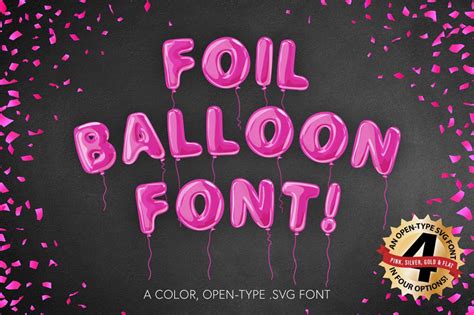
Free Balloon Font . This font is for personal use only! Web experience the fun and whimsy of our free balloon fonts.
These captivating typefaces infuse your designs with playfulness and creativity, transforming ordinary text into a vibrant dance of letters reminiscent of floating balloons. This font is for personal use only! Web experience the fun and whimsy of our free balloon fonts.
Free Balloon Font - Web free for personal use. Not free for commercial use. These captivating typefaces infuse your designs with playfulness and creativity, transforming ordinary text into a vibrant dance of letters reminiscent of floating balloons. This font is for personal use only! Web looking for party balloon fonts?
Free Balloon Font - These captivating typefaces infuse your designs with playfulness and creativity, transforming ordinary text into a vibrant dance of letters reminiscent of floating balloons. Balloon is licensed under the following terms: Perfect for party invitations, kid's events or any jovial occasion! Web free for personal use. Every font is free to download!
Free Balloon Font - Perfect for party invitations, kid's events or any jovial occasion! Not free for commercial use. This font is for personal use only! Click to find the best 40 free fonts in the party balloon style. Web in a world saturated with conventional fonts, balloon fonts emerge as a whimsical breath of fresh air.
Free Balloon Font - Web 68,366 downloads (4 yesterday) free for personal use. Inspired by the playful charm of colorful balloons dancing in the sky, each letter bounces with joy and lightness. Every font is free to download! Web experience the fun and whimsy of our free balloon fonts. This font is for personal use only!
Free Balloon Font - Web 68,366 downloads (4 yesterday) free for personal use. Balloon is licensed under the following terms: Web experience the fun and whimsy of our free balloon fonts. Perfect for party invitations, kid's events or any jovial occasion! Web in a world saturated with conventional fonts, balloon fonts emerge as a whimsical breath of fresh air.
Free Balloon Font - Balloon is licensed under the following terms: Web 68,366 downloads (4 yesterday) free for personal use. Web free for personal use. Perfect for party invitations, kid's events or any jovial occasion! These captivating typefaces infuse your designs with playfulness and creativity, transforming ordinary text into a vibrant dance of letters reminiscent of floating balloons.
Free Balloon Font - Click to find the best 40 free fonts in the party balloon style. Web free for personal use. This font is for personal use only! Web experience the fun and whimsy of our free balloon fonts. Web in a world saturated with conventional fonts, balloon fonts emerge as a whimsical breath of fresh air.
Free Balloon Font - This font is for personal use only! Inspired by the playful charm of colorful balloons dancing in the sky, each letter bounces with joy and lightness. These captivating typefaces infuse your designs with playfulness and creativity, transforming ordinary text into a vibrant dance of letters reminiscent of floating balloons. Perfect for party invitations, kid's events or any jovial occasion! Every.
Free Balloon Font - Click to find the best 40 free fonts in the party balloon style. Every font is free to download! Balloon is licensed under the following terms: Inspired by the playful charm of colorful balloons dancing in the sky, each letter bounces with joy and lightness. These captivating typefaces infuse your designs with playfulness and creativity, transforming ordinary text into a.
Free Balloon Font - These captivating typefaces infuse your designs with playfulness and creativity, transforming ordinary text into a vibrant dance of letters reminiscent of floating balloons. Web 68,366 downloads (4 yesterday) free for personal use. Web in a world saturated with conventional fonts, balloon fonts emerge as a whimsical breath of fresh air. Perfect for party invitations, kid's events or any jovial occasion!.
Free Balloon Font - Every font is free to download! These captivating typefaces infuse your designs with playfulness and creativity, transforming ordinary text into a vibrant dance of letters reminiscent of floating balloons. Web experience the fun and whimsy of our free balloon fonts. Not free for commercial use. Inspired by the playful charm of colorful balloons dancing in the sky, each letter bounces.
Free Balloon Font - Not free for commercial use. These captivating typefaces infuse your designs with playfulness and creativity, transforming ordinary text into a vibrant dance of letters reminiscent of floating balloons. Perfect for party invitations, kid's events or any jovial occasion! Web looking for party balloon fonts? This font is for personal use only!